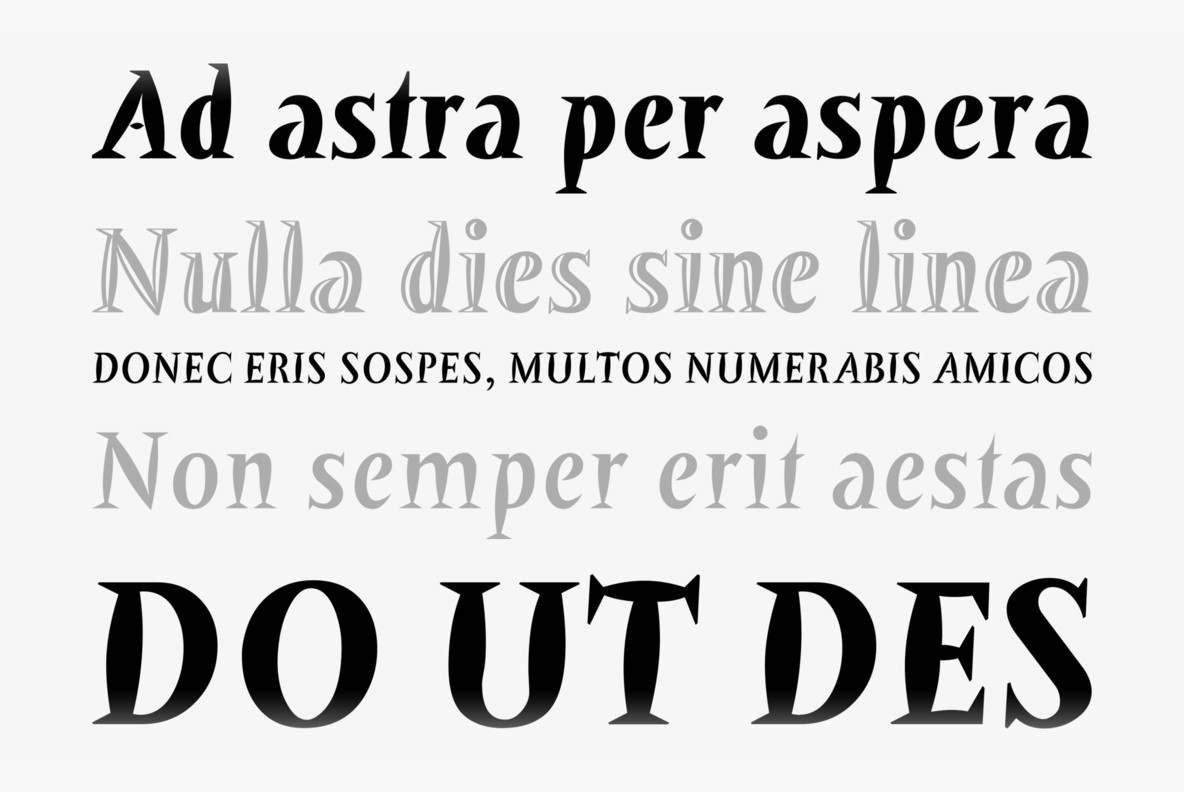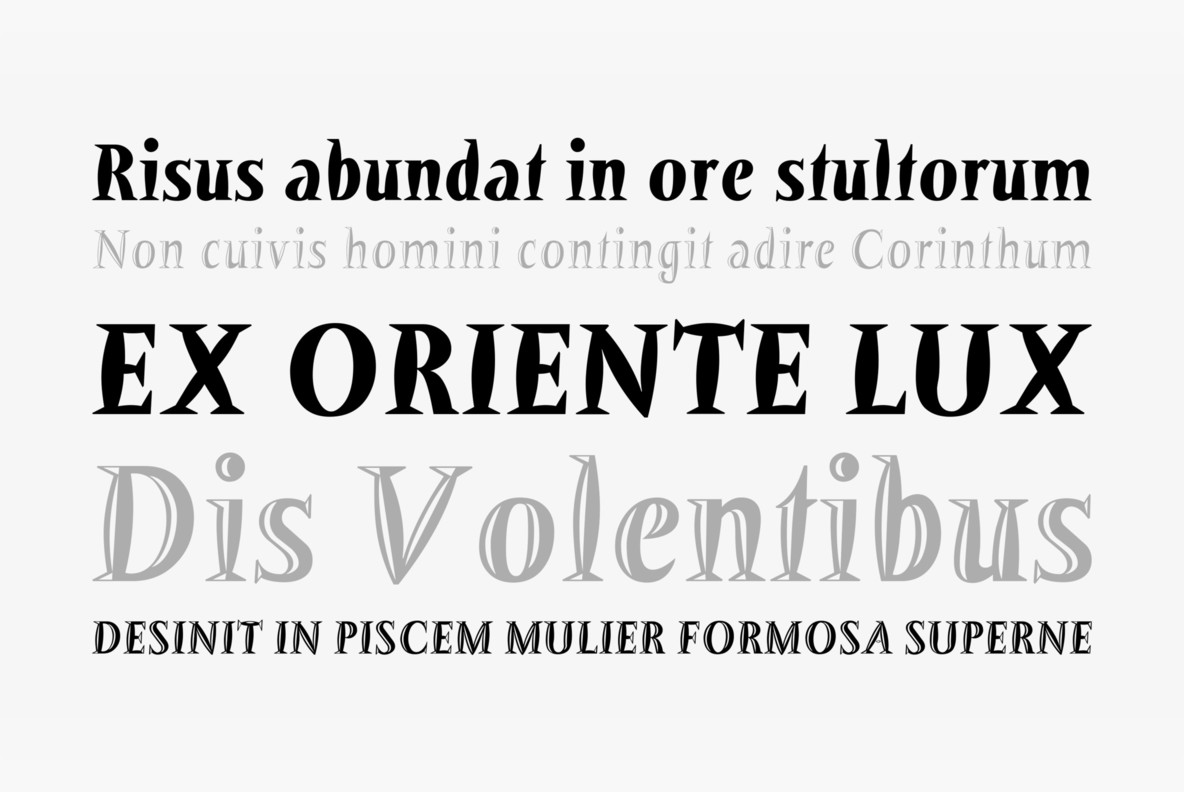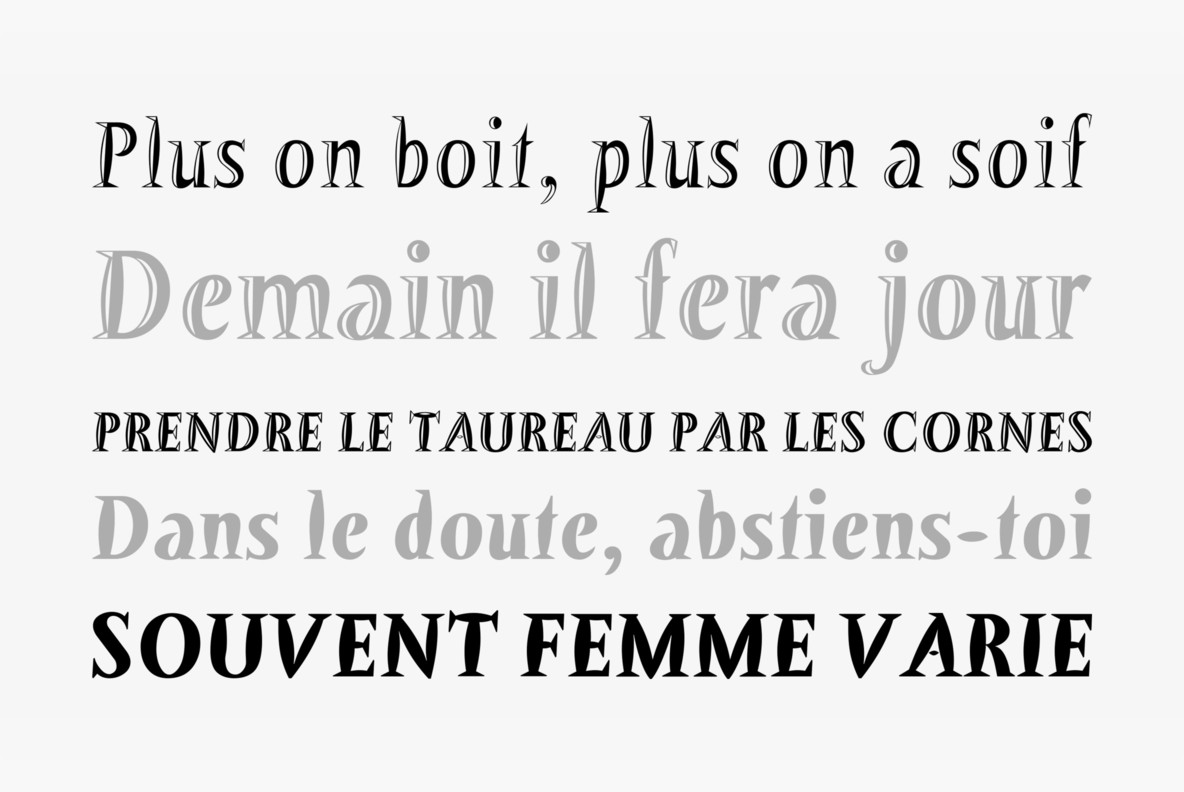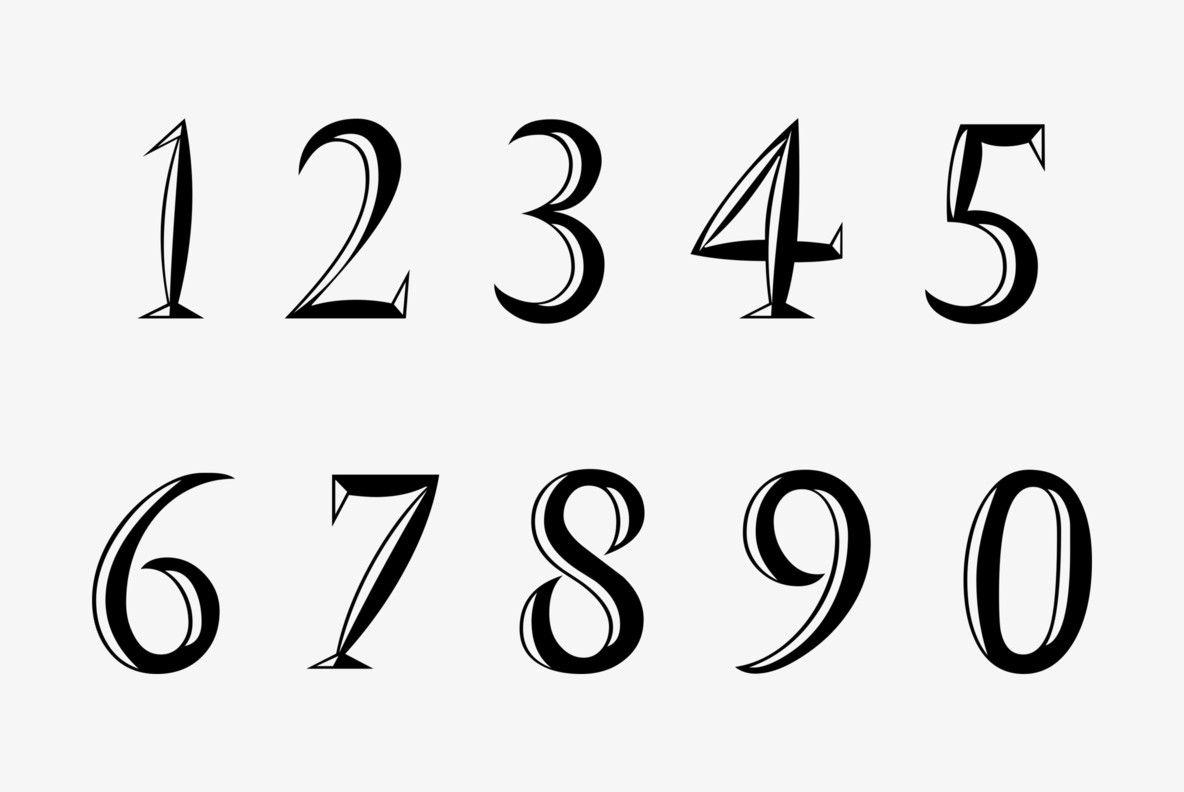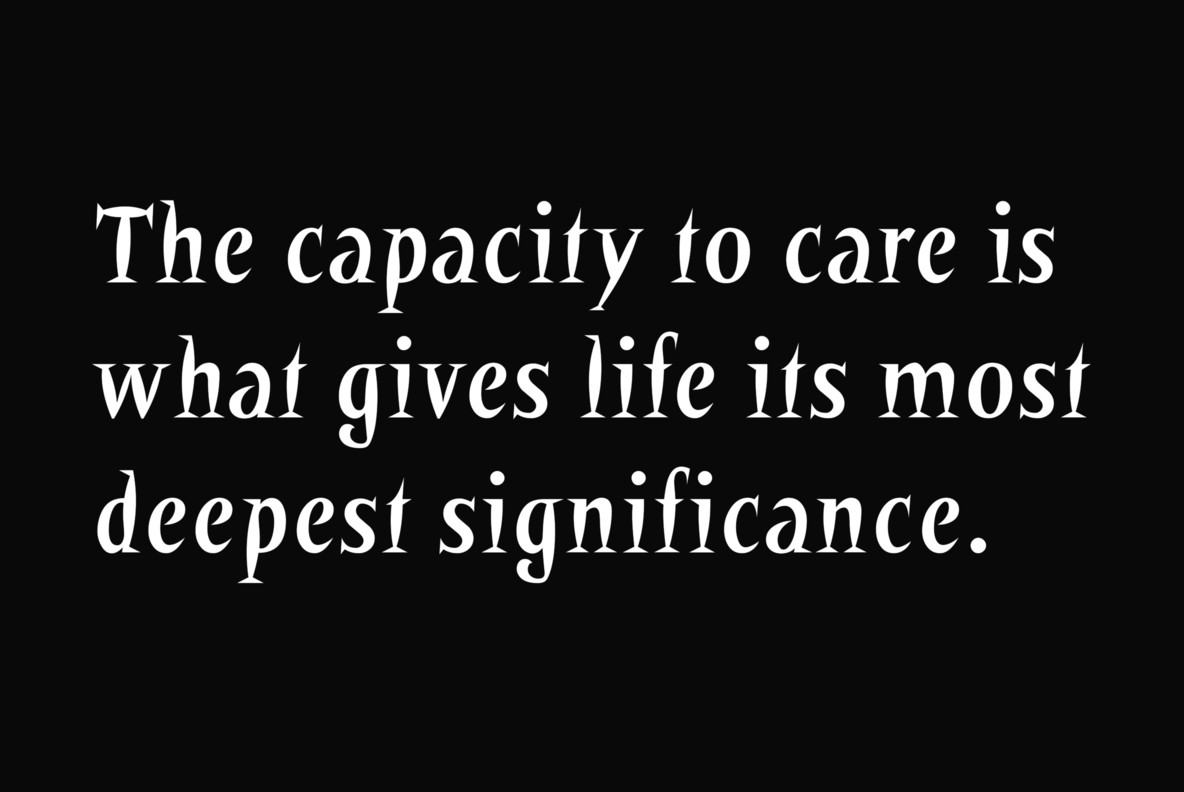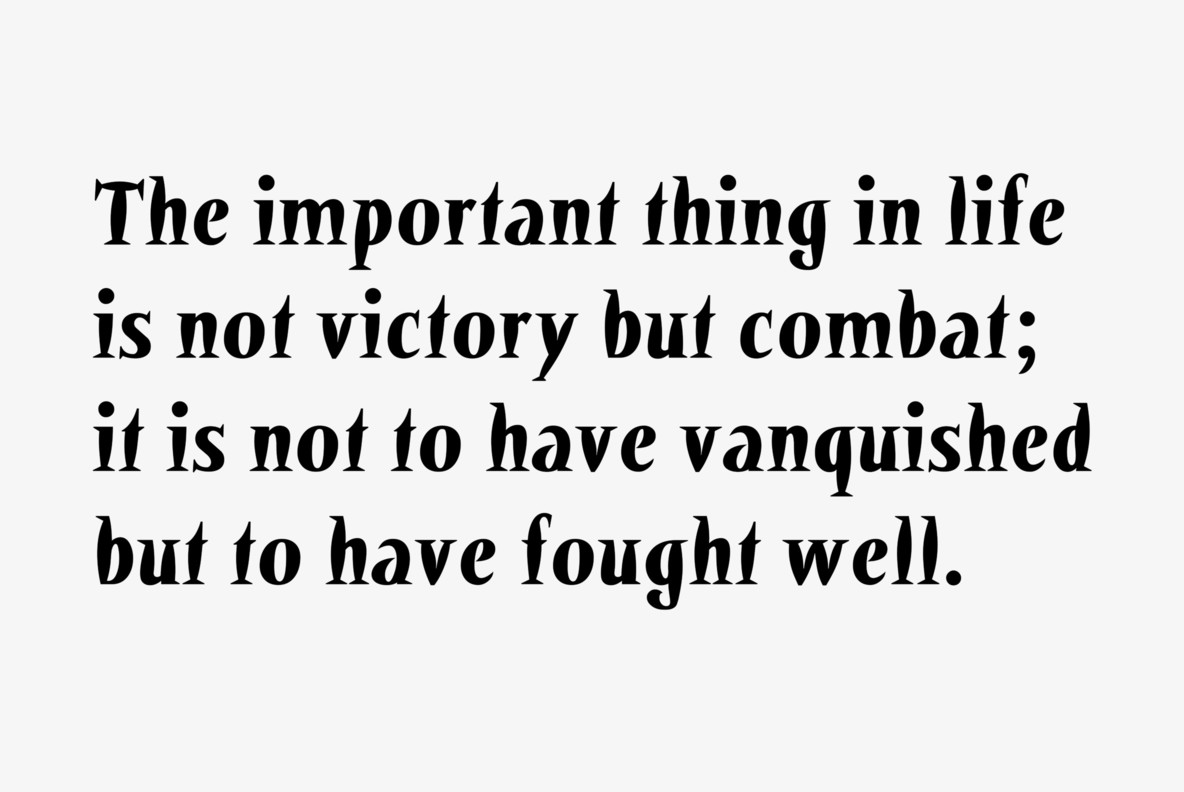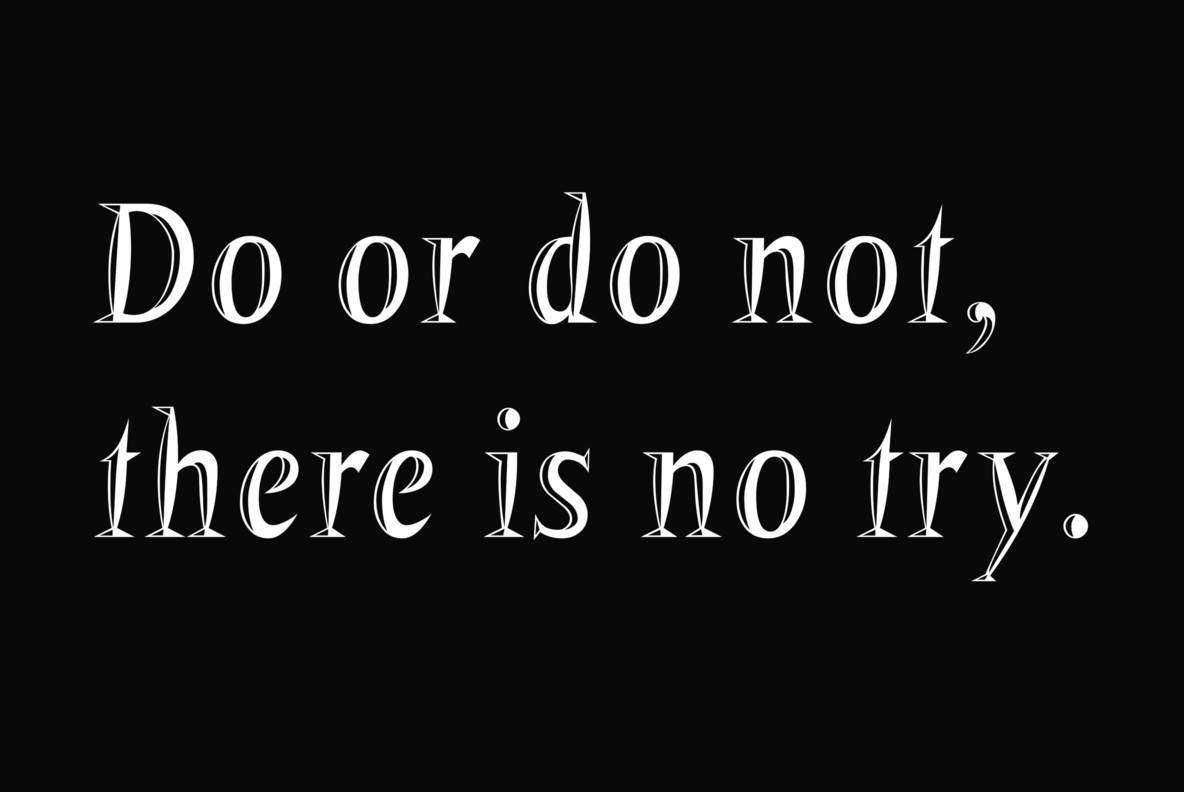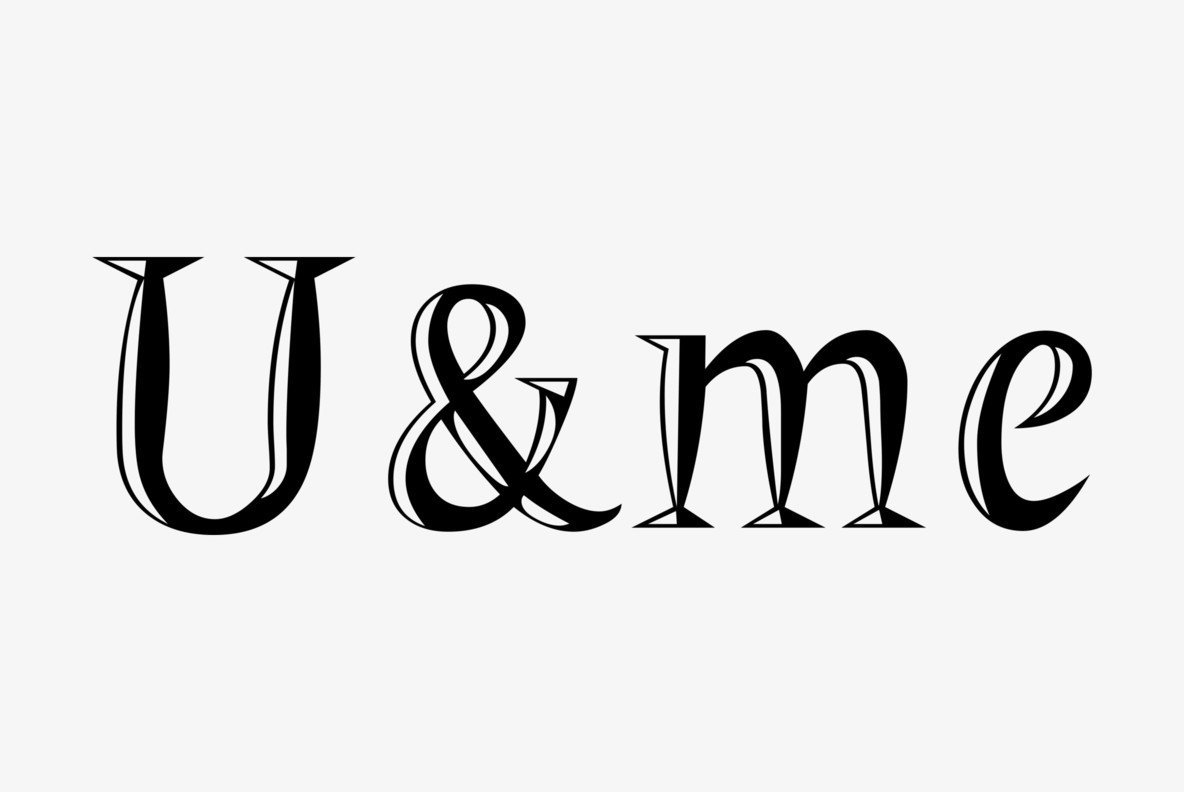
Barracuda Font
"Barracuda" has this sharp, sharky look and I do a lot of diving with my best friend. What else is there to say? If you see a shark say hello from me, yours from under the red sea Gert Wiescher